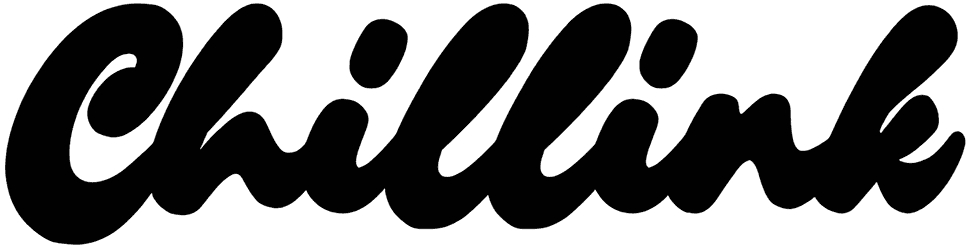
Chillink Font
Chillink font has that relaxed marker-style personality that makes a headline feel casual, young, and nicely off-duty. Its loose handwritten shapes bring the kind of easy confidence you want for designs that shouldn’t look too polished or too serious. You can almost picture it on a sticker, a playlist cover, or a coffee cup scribble that somehow became the best part of the layout.
Use Chillink font for streetwear tags, school flyers, café notes, planner stickers, music covers, skate graphics, or laid-back social posts. Pair this brush font with bright colors, doodles, or torn paper textures, and it starts feeling properly chill.